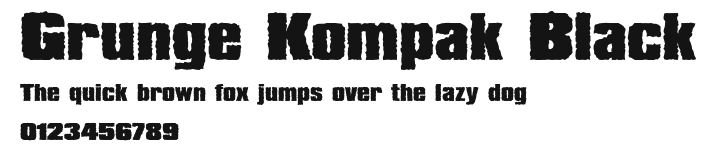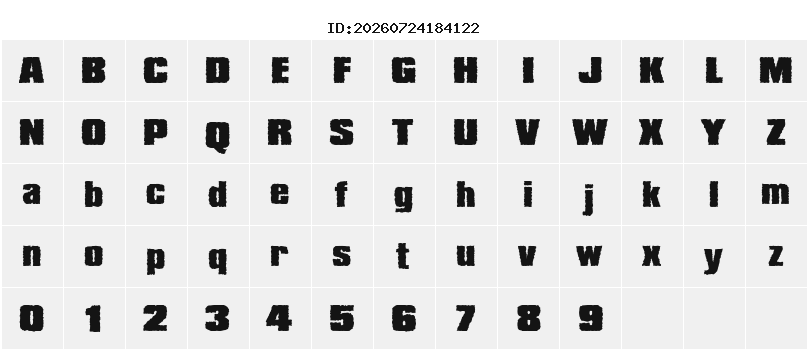
• Font Name: Grunge Kompak Black
• Full Font Name: Grunge Kompak Black
About Grunge Kompak Black.ttf
Grunge Kompak Black.ttf is a modern, elegant sans-serif font designed for ultimate readability and visual harmony. Perfect for branding, headlines, web design, and print materials.